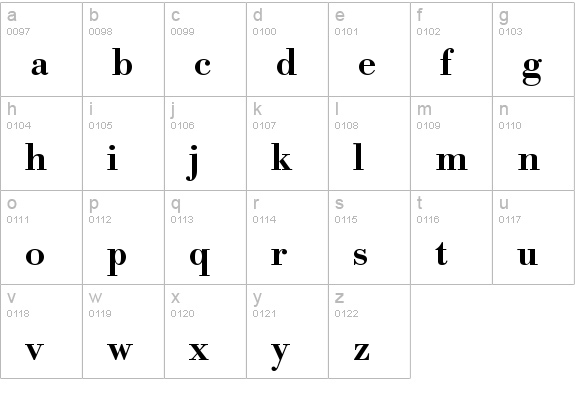
BodoniEF-DemiBold is a sub-bold, structured variant in the BodoniEF typeface family \xE2\x80\x94 well suited to sub-headlines and emphasised passages.
BodoniEF-DemiBold is a classic and timeless font that exudes elegance and sophistication. With its bold and striking appearance, this font makes a powerful statement in any design project. The strong, thick strokes of BodoniEF-DemiBold command attention and convey a sense of confidence and authority. What makes this font even more appealing is that it is available for free download at FontsMarket.com. This means that you can easily access and use BodoniEF-DemiBold in your projects without any cost. Whether you are designing a poster, logo, or brochure, this versatile font is sure to elevate your work and leave a lasting impression on your audience. Experience the beauty and versatility of BodoniEF-DemiBold today by downloading it for free at FontsMarket.com. Let this font be the perfect choice to enhance your designs and take them to the next level.